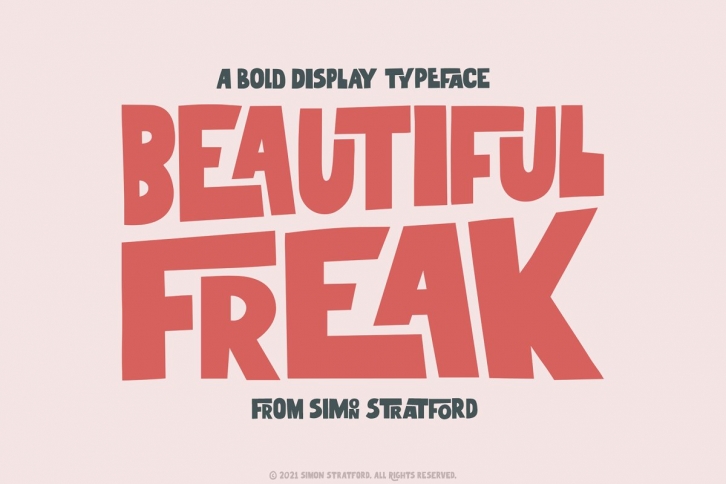
Beautiful Freak a bold, quirky display font with a fun, trendy street style vibe. From posters designs to t-shirts and packaging, Beautiful Freak will give your designs that alternative minimal look and make your creative work look supercharged.
Beautiful Freak was hand-drawn, making its outlines somewhat irregular and quirky. It has an almost hand-lettered look; the characters jump around the baseline giving it a charming but urban look and feel.
The modern bold sans serif typeface has a host of alternatives and ligatures included. Combine its bold shapes to give your work a more unique, hipster attitude. Easily create professional cool type lockups that look like hand lettering.
All A to Z characters has at least three alternatives. To make your text look less repetitive, you can switch out letters for others—This makes your design look more like hand lettering.
Beautiful Freak has many ligatures, 87 of them in total. You can turn this on via the glyphs panel in Adobe applications. The ligatures make a massive difference in the look of Beautiful Freak. It switches out popular two-letter sequences that make your designs look even more individual.
If Beautiful Freak were a band, it would be more The Clash than Coldplay—Yeah, it's like the hugely popular mainstream band that sucks compared to a daring indie band.